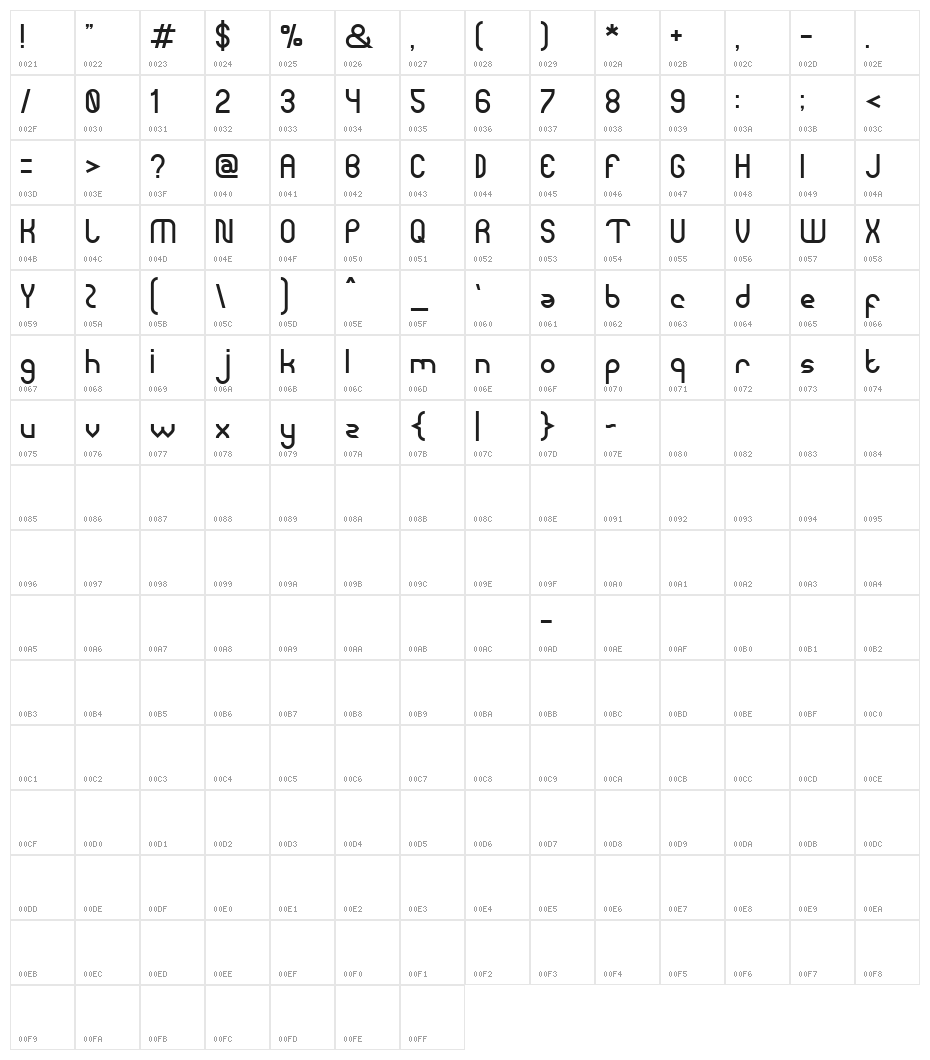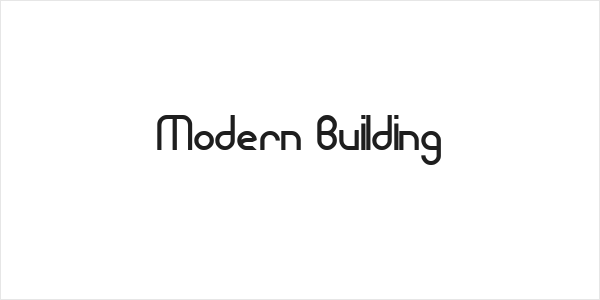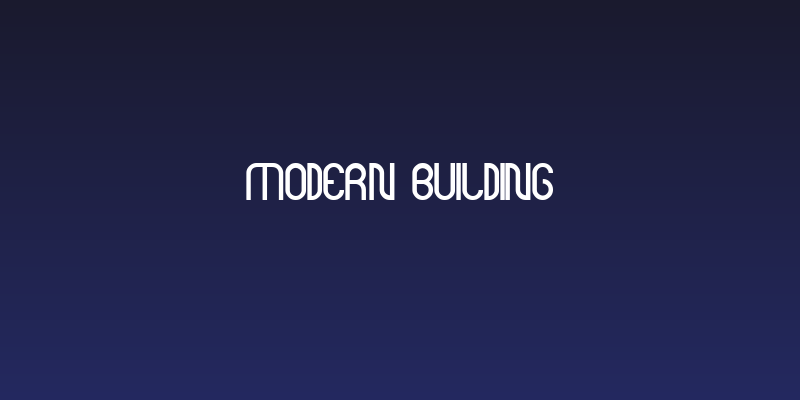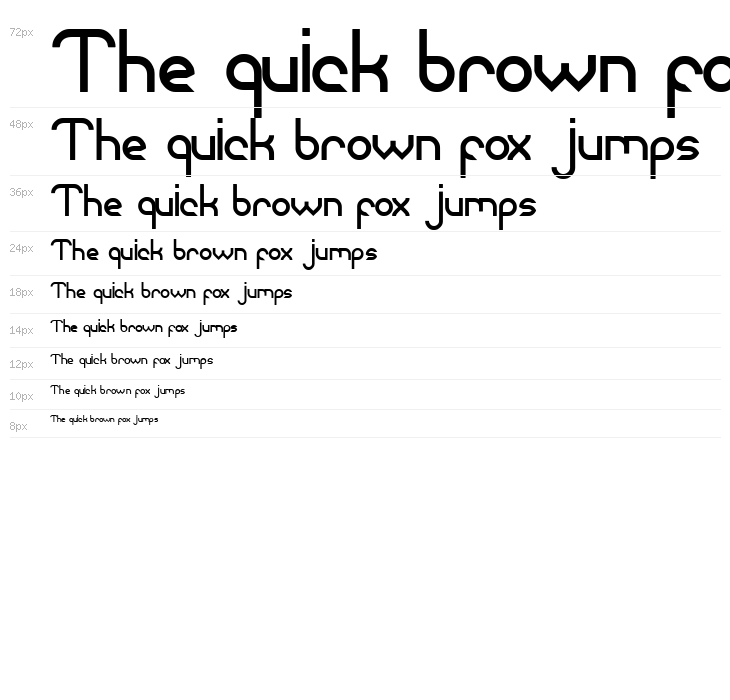
Modern Building Font
✎ Thick
| Vorgeschlagene Projekte | Ideal for branding, advertising, posters, and digital media where a modern and clean look is desired. |